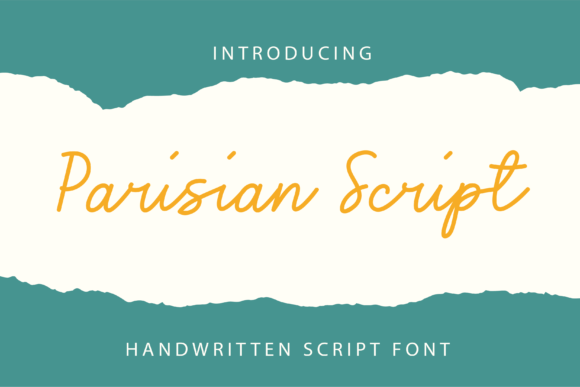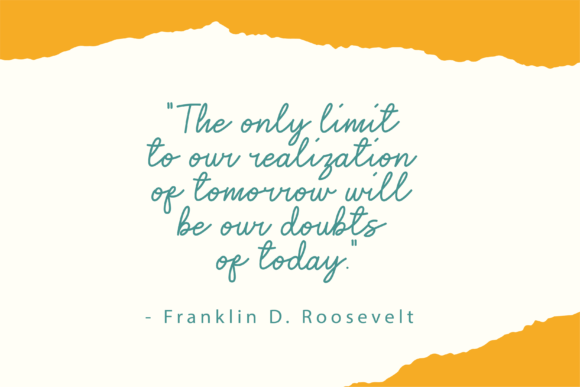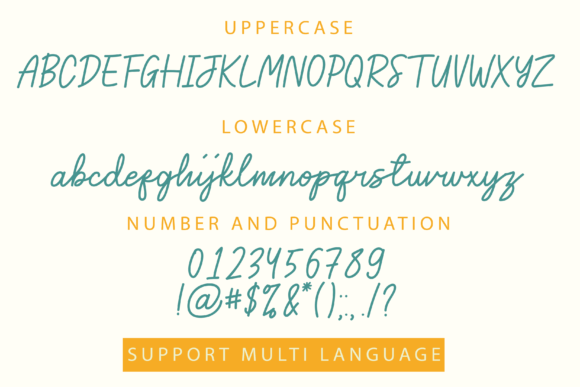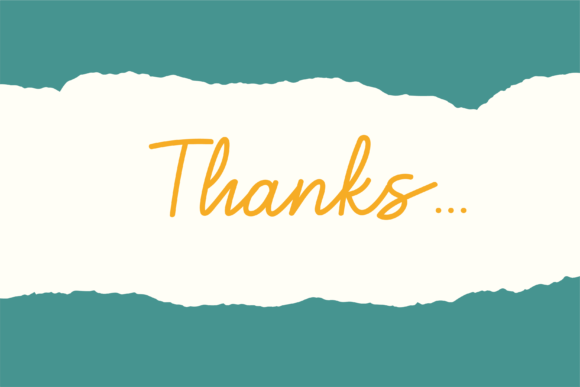
Parisian Script Font
A Luxurious Script Font for Elegant Branding
Parisian Script is a sophisticated and trendy script font designed to bring elegance to any project. With its flowing curves and graceful lines, this font is perfect for upscale designs that need a refined, polished look.
Whether you’re working on branding, event invitations, or product packaging, Parisian Script adds a luxurious feel that will set your work apart.
Perfect for Logos and Visual Identity
If you want your brand to feel exclusive and stylish, Parisian Script is an ideal choice.
Use it in logos to create a sense of class and refinement. The fluid letterforms and elegant swashes make your logo look custom-made and unique.
Pair it with minimalist icons or clean sans-serif text to create balance and highlight the script’s beauty.
Enhance Invitations and Stationery
Parisian Script is also perfect for invitations to weddings, galas, and other upscale events.
Its smooth connections and intricate curves add a romantic and sophisticated touch to save-the-date cards, thank-you notes, and menus.
When used in large headings, the font’s details shine and create a memorable impression.
Add Luxury to Packaging and Labels
If you design packaging for luxury products, Parisian Script brings an extra layer of elegance.
Use it for product names, labels, or taglines on cosmetics, perfumes, or fashion items.
Its stylish flair communicates quality and exclusivity, making customers feel like they are purchasing something special.
Features and Details
Parisian Script includes uppercase and lowercase letters, numerals, punctuation, and many alternates and ligatures.
Its OpenType features make it easy to create dynamic and varied designs. The smooth connections between letters help maintain a cohesive look, even in longer words or sentences.
This versatility ensures your text feels consistent and elegant across different applications.
Tips for Best Use
To get the most out of Parisian Script, use it in larger sizes. This helps show off the detailed curves and elegant swashes.
Keep backgrounds simple and neutral to let the font stand out. Light colors and soft textures work especially well.
Avoid using it in paragraphs or body text, as the script style is best suited for headlines and short phrases.
Elevate Your Designs with Parisian Script
From high-end logos to luxury invitations, Parisian Script is your go-to font for projects that require a touch of sophistication.
Its versatile design makes it easy to pair with modern or classic elements, giving you endless creative possibilities.
Use it confidently to create memorable, elegant designs that leave a lasting impression on your audience.